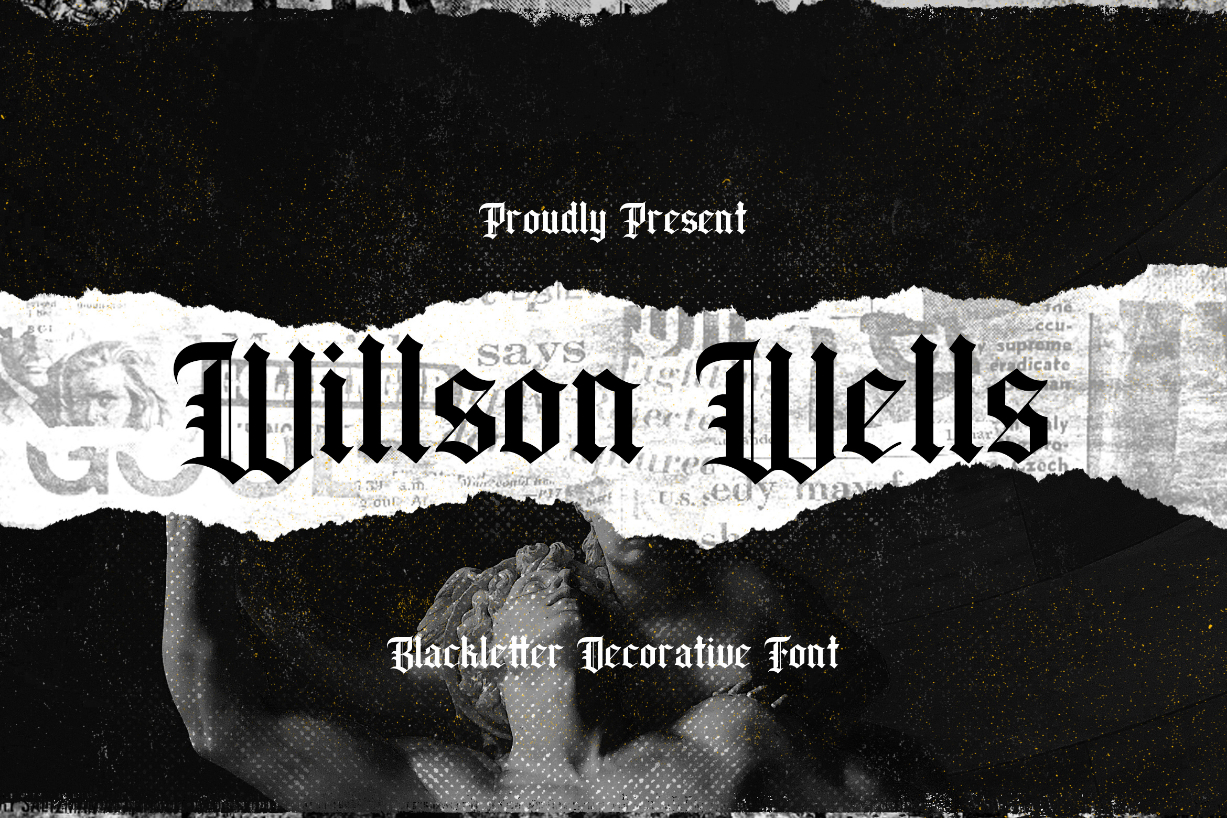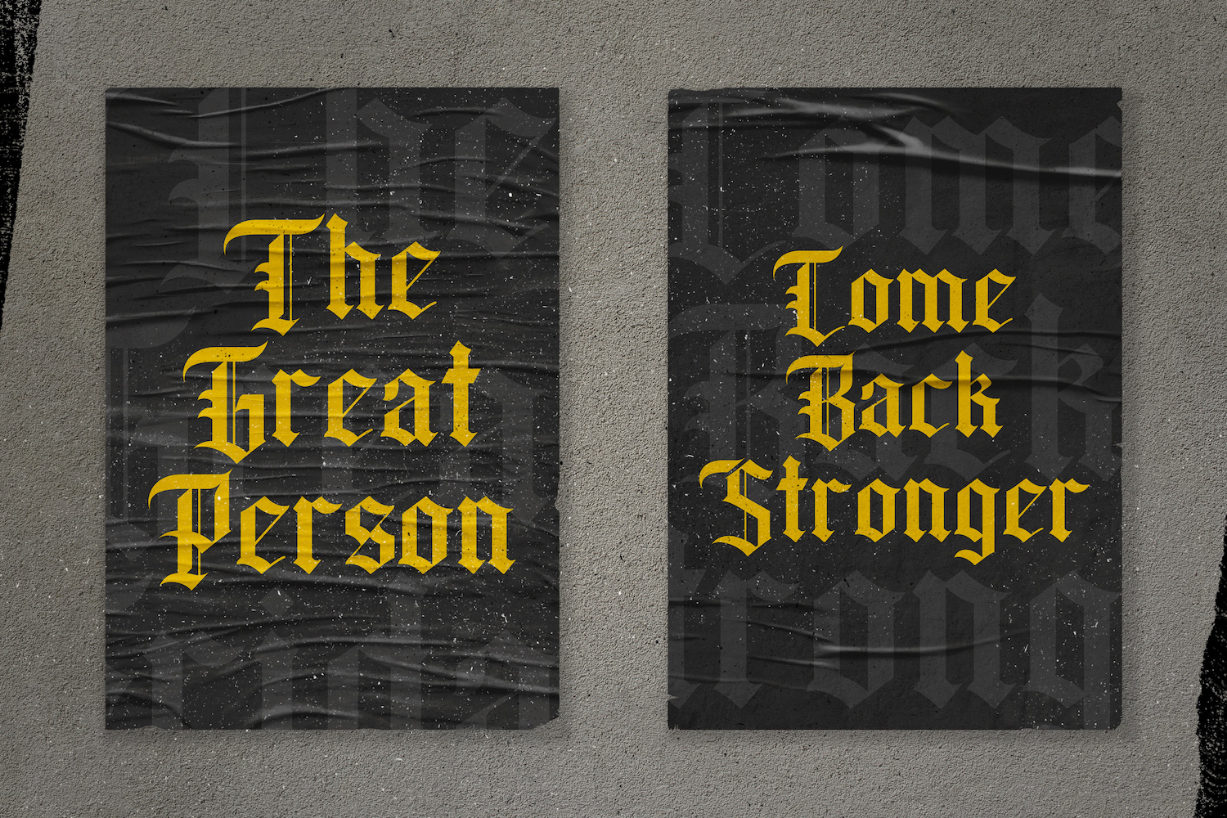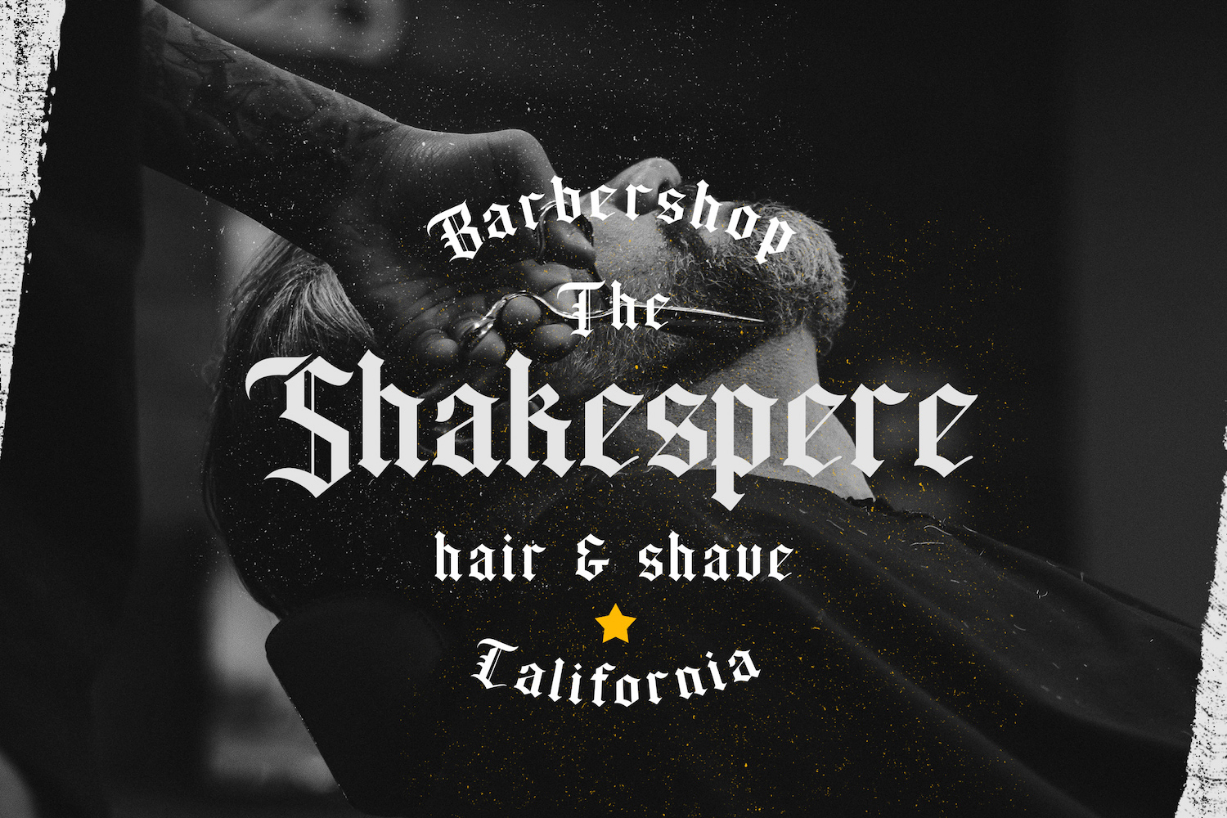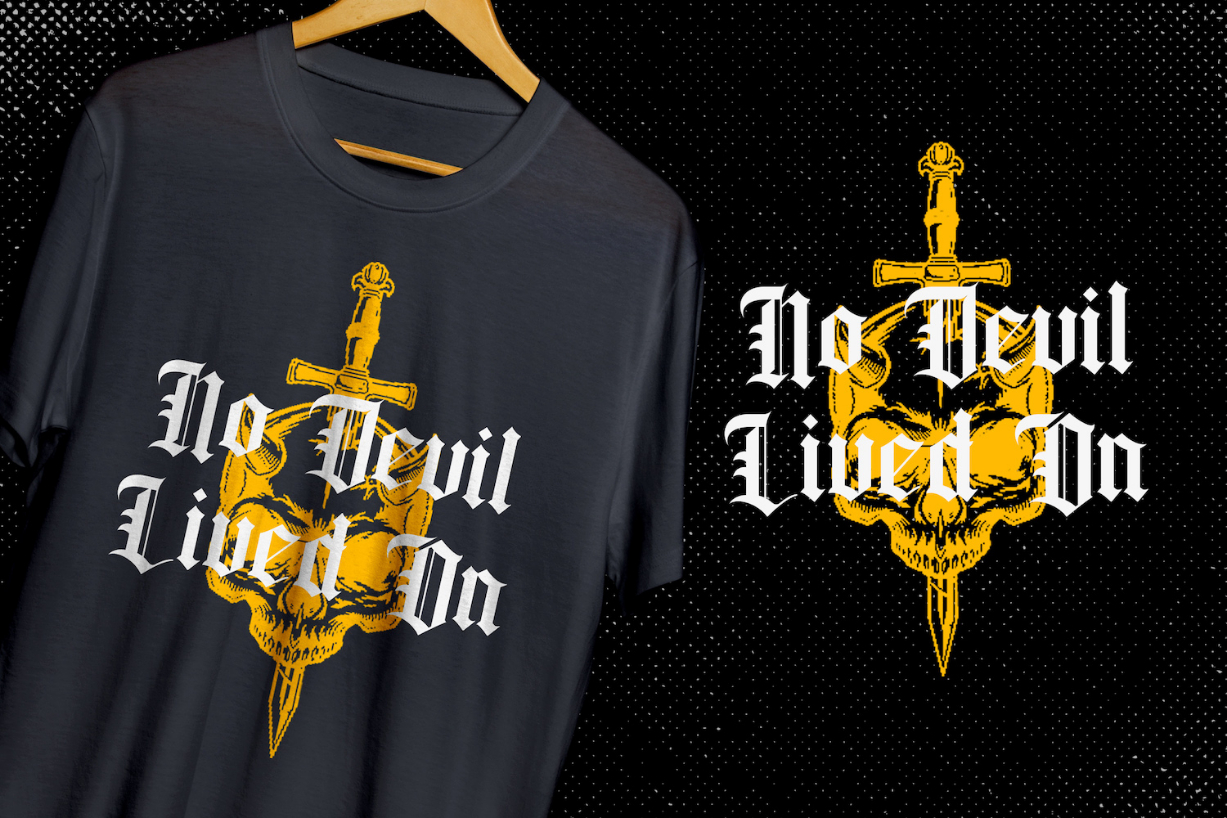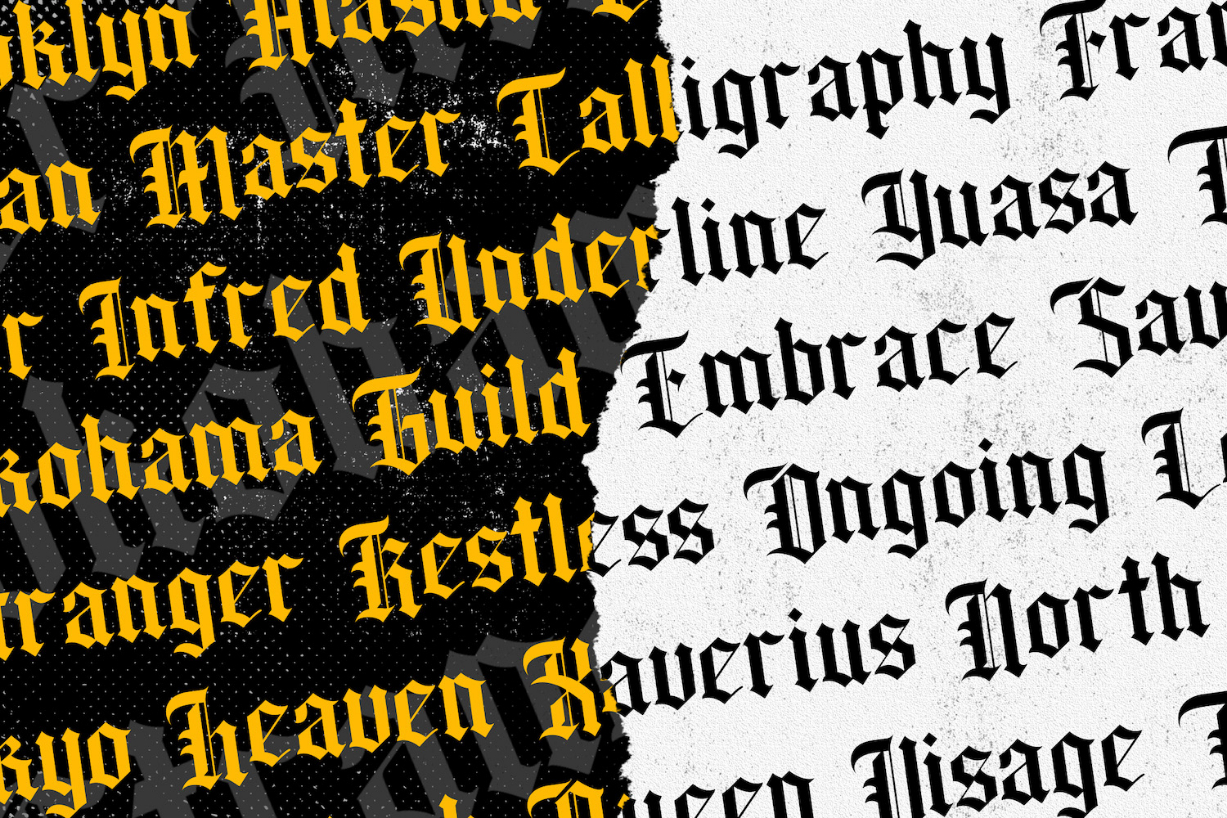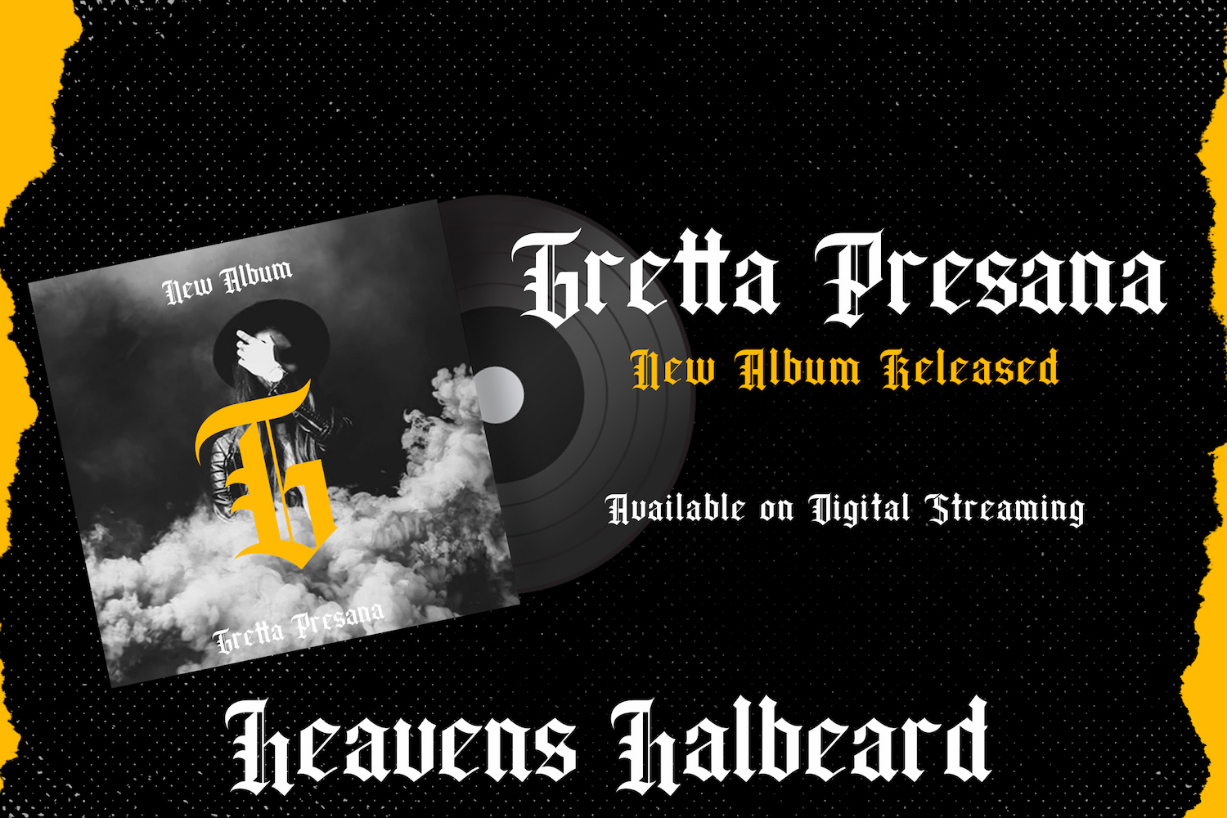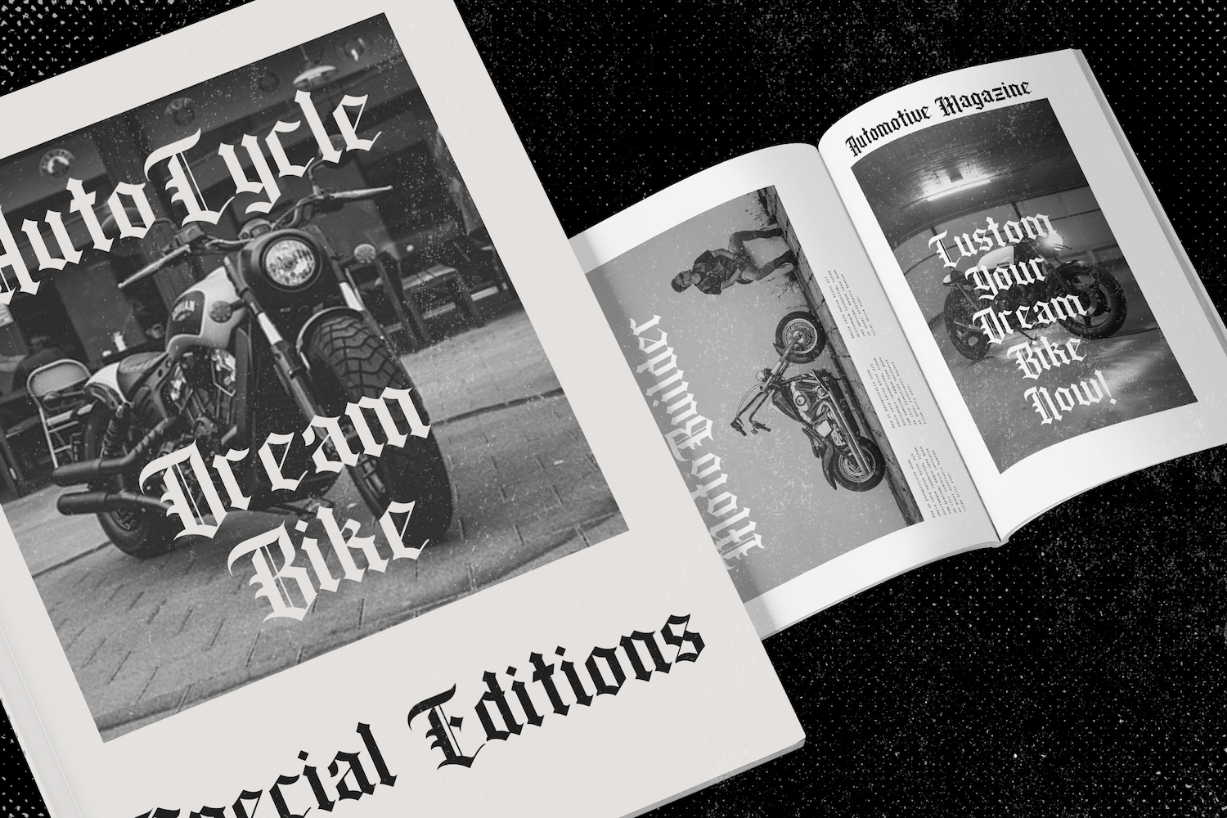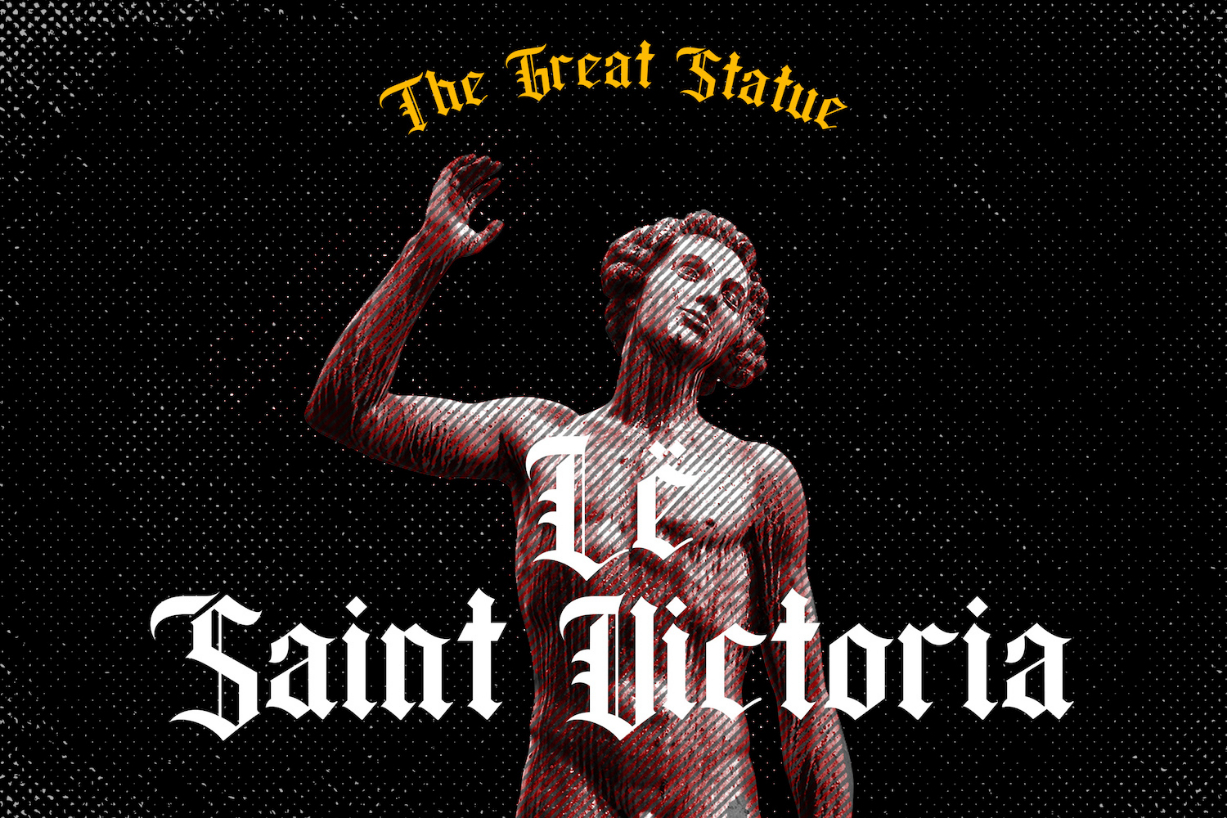
Wilson Wells Font
About Wilson Wells Font
Wilson Wells is a unique blackletter font. It features a vintage style. Use it to add that special retro touch to any design idea you can think of!